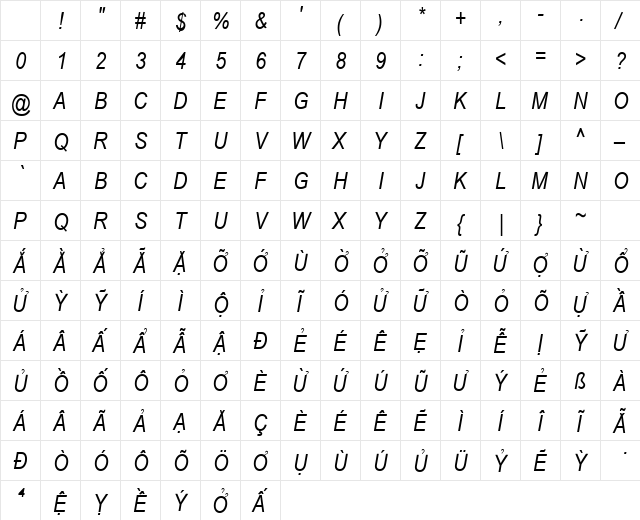
Complete VPS Pleiku Hoa Italic glyph index. Displaying only characters natively supported by VPS Pleiku Hoa Italic font.
VPS Pleiku Hoa is a composed and adaptable typeface that performs quietly and consistently across a wide range of design contexts. The slanted form adds forward momentum and visual energy.
Pro Tip: Use VPS Pleiku Hoa for emphasis, pull quotes, and subheadings where its slanted energy can add rhythm to the layout.